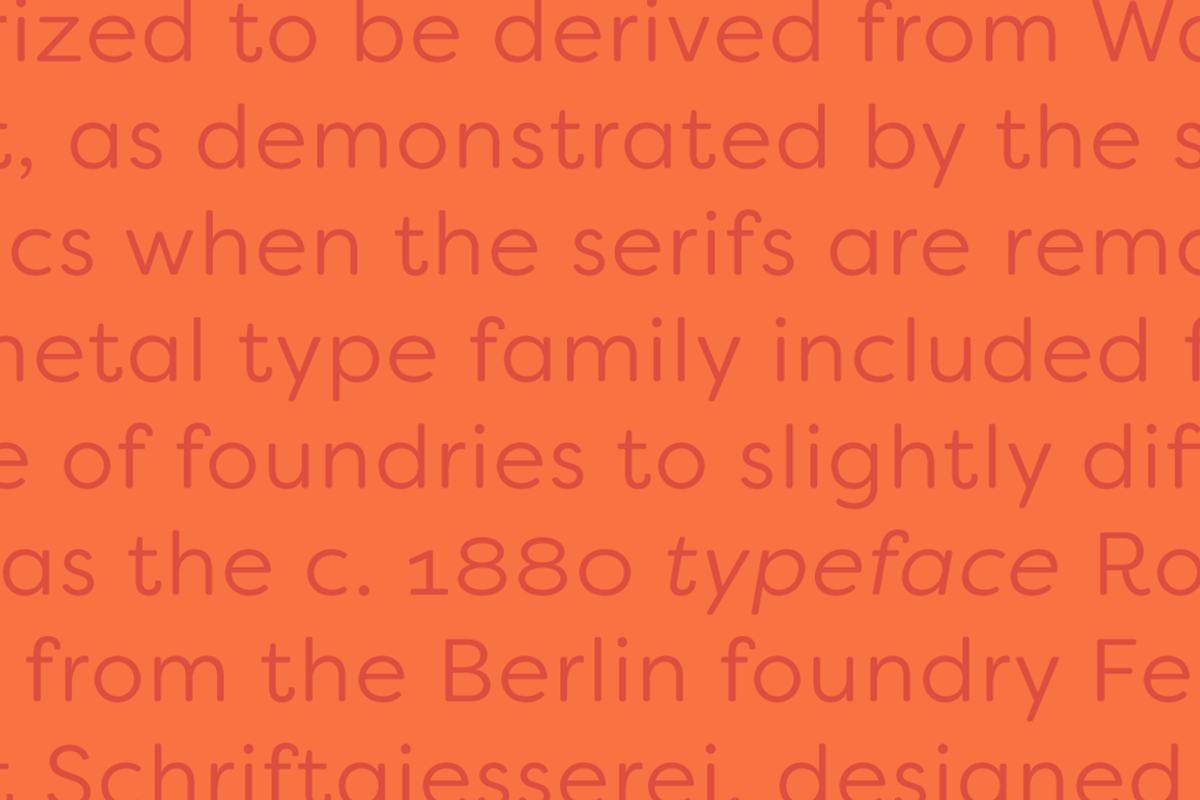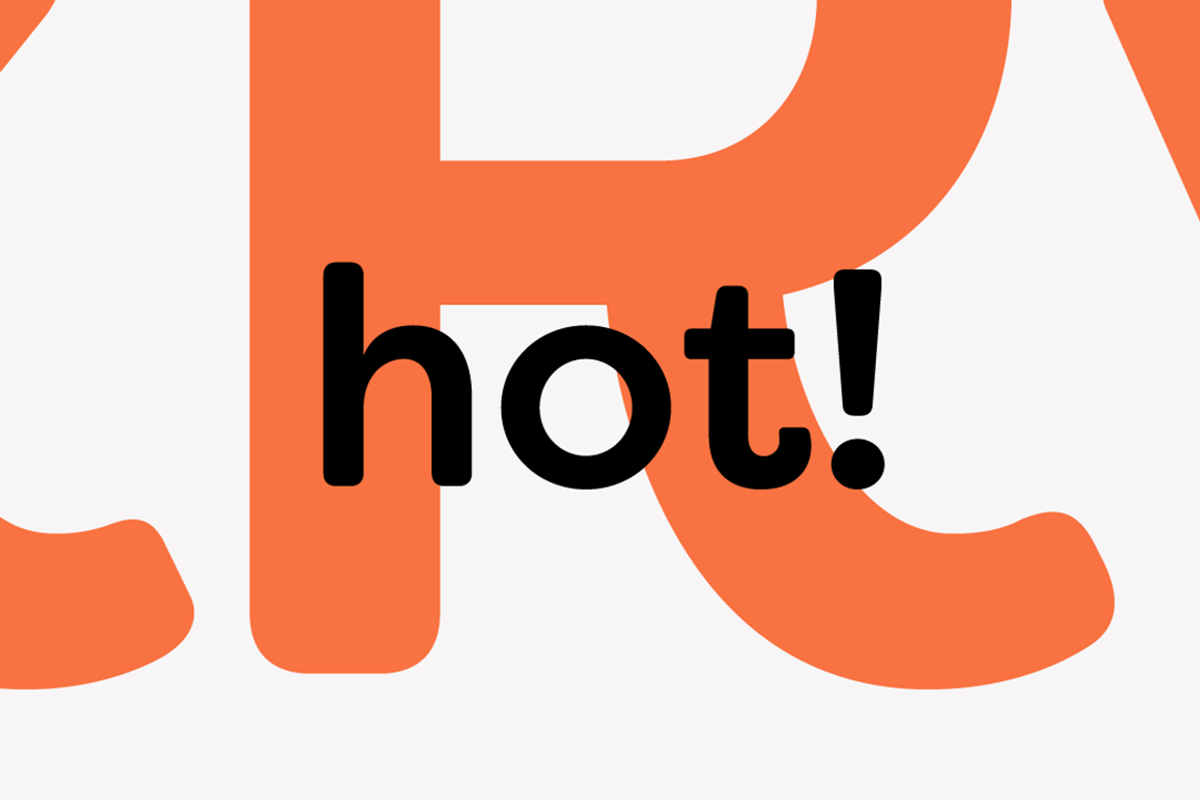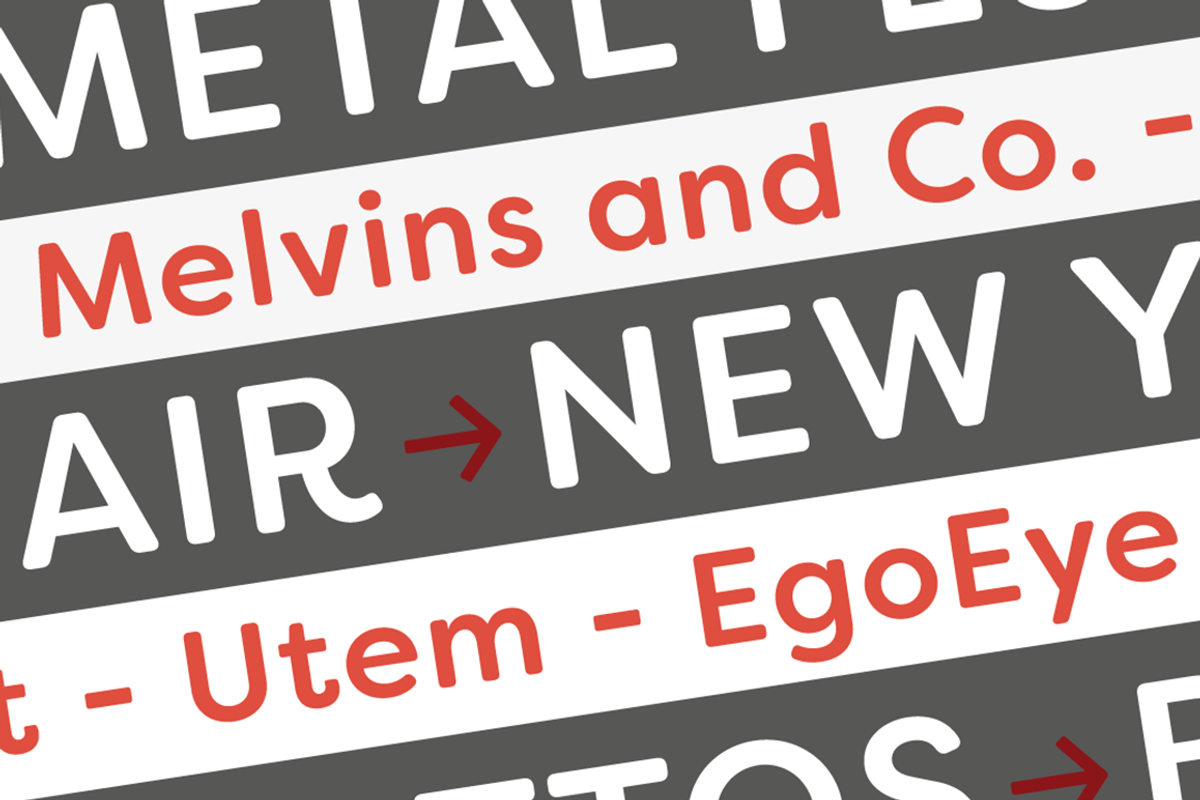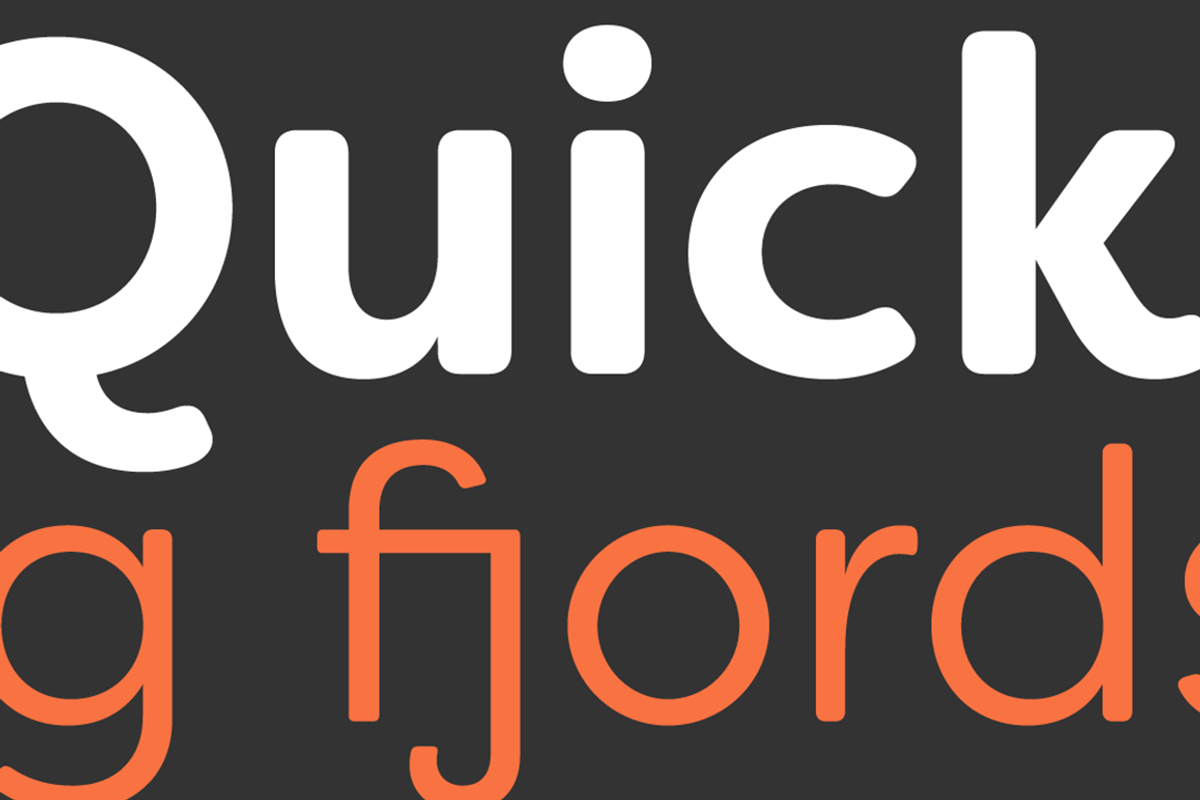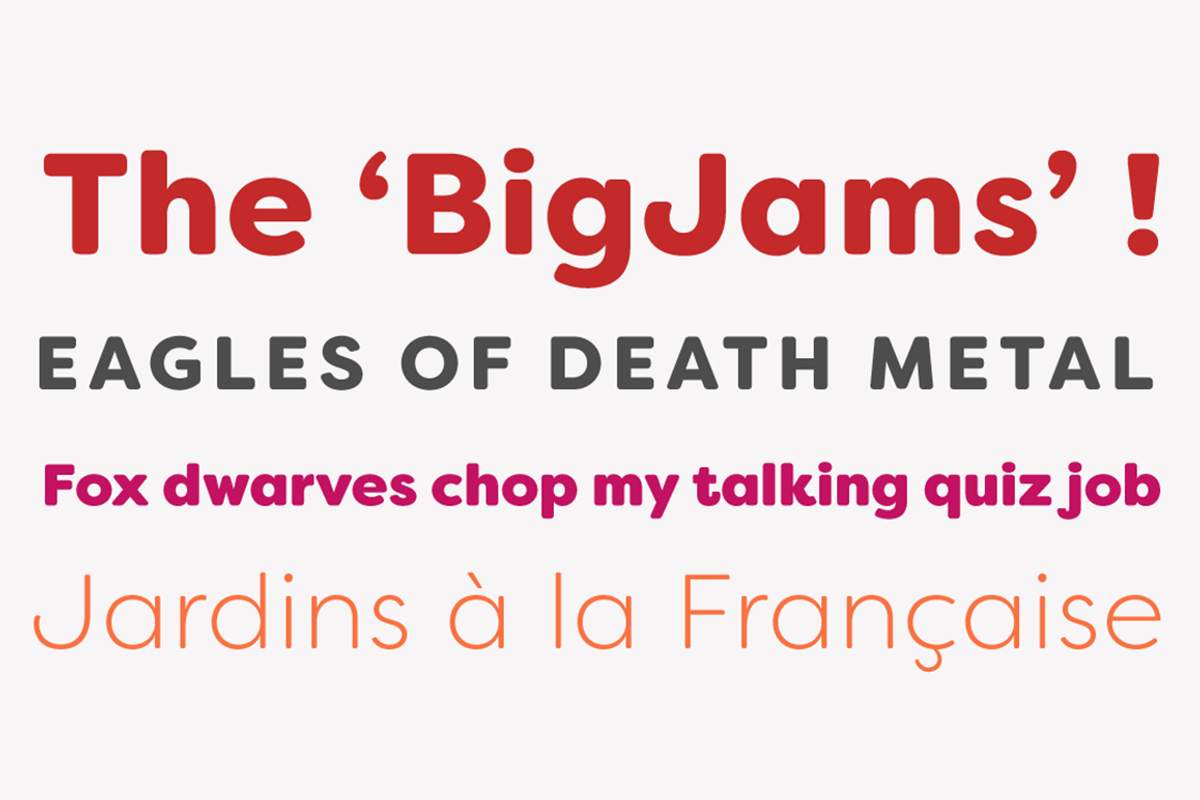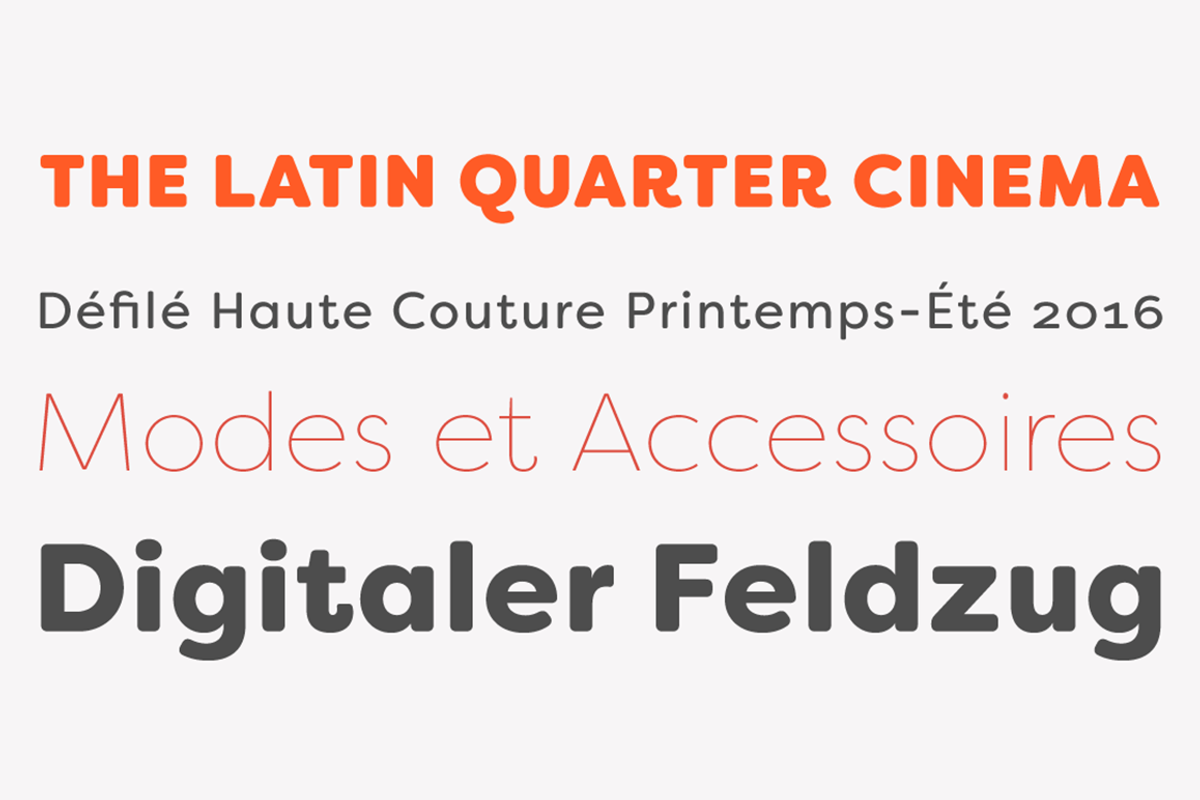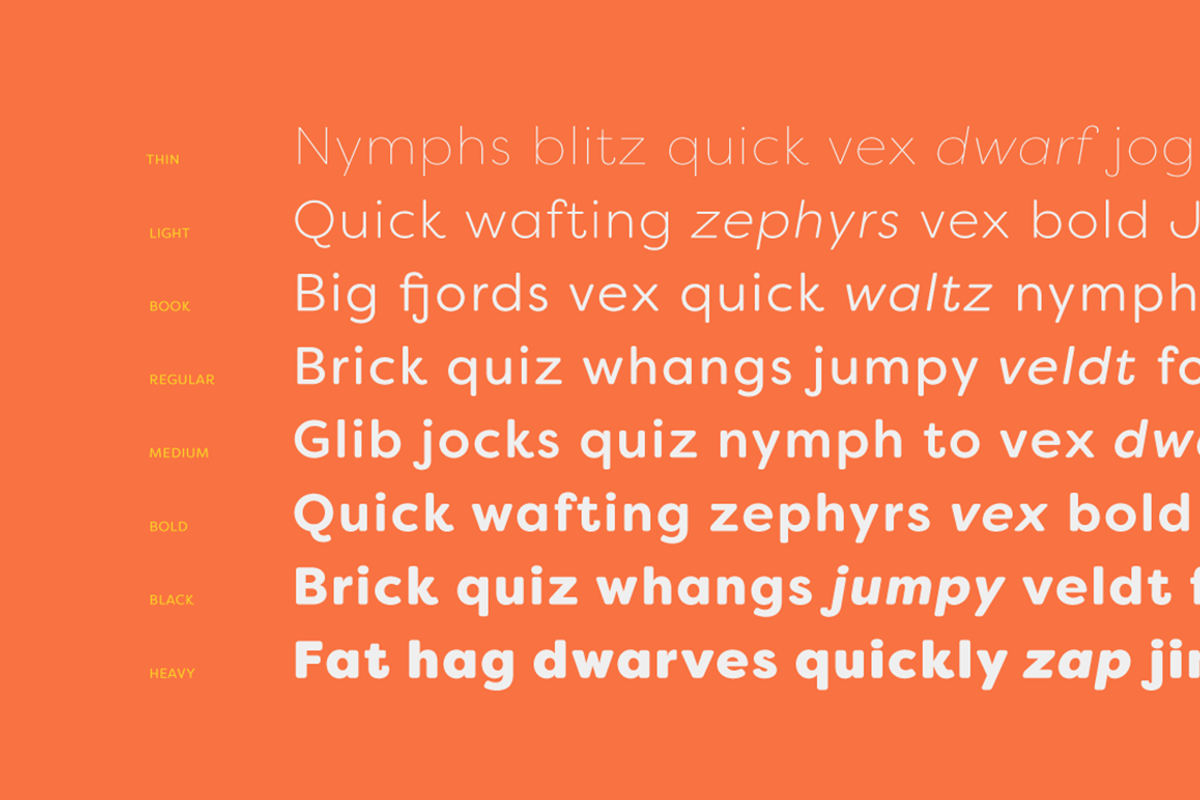
Filson Soft -Complete Font Family
Filson Soft -Complete Font Family by Mostardesign Type Foundry is a font selected for branding, posters, packaging, typography.
- For better typographic control, Filson Soft also includes an OpenType class kerning with thousands of kerning pairs.
- Filson Soft comes in 8 weights - Thin, Light, Book, Regular, Medium, Bold, Black, Heavy with a professional range of Opentype functions such
- For better typographic control, Filson Soft also includes an OpenType class kerning with thousands of kerning pairs.
Why Filson Soft -Complete Font Family is worth a look
Filson Soft -Complete Font Family by Mostardesign Type Foundry fits naturally into Branding, posters, packaging, typography.